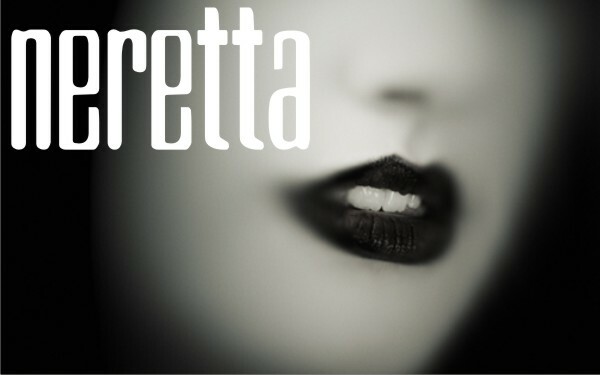
Neretta Beveled by Iza W is a free outlined display font with exceptionally tall, narrow letters and inset lines that suggest a shallow carved edge. Its slim contours bend into soft, slightly irregular curves, and the changing stroke widths keep the forms from looking mechanically uniform. The overall silhouette is strikingly vertical.
Fashion and nightlife themes suit its elongated lettering, particularly on event posters, album covers, and boutique packaging. The open interiors and elegant height can also support high-fashion editorial mastheads for experimental designers and audiences drawn to theatrical, unconventional typography.